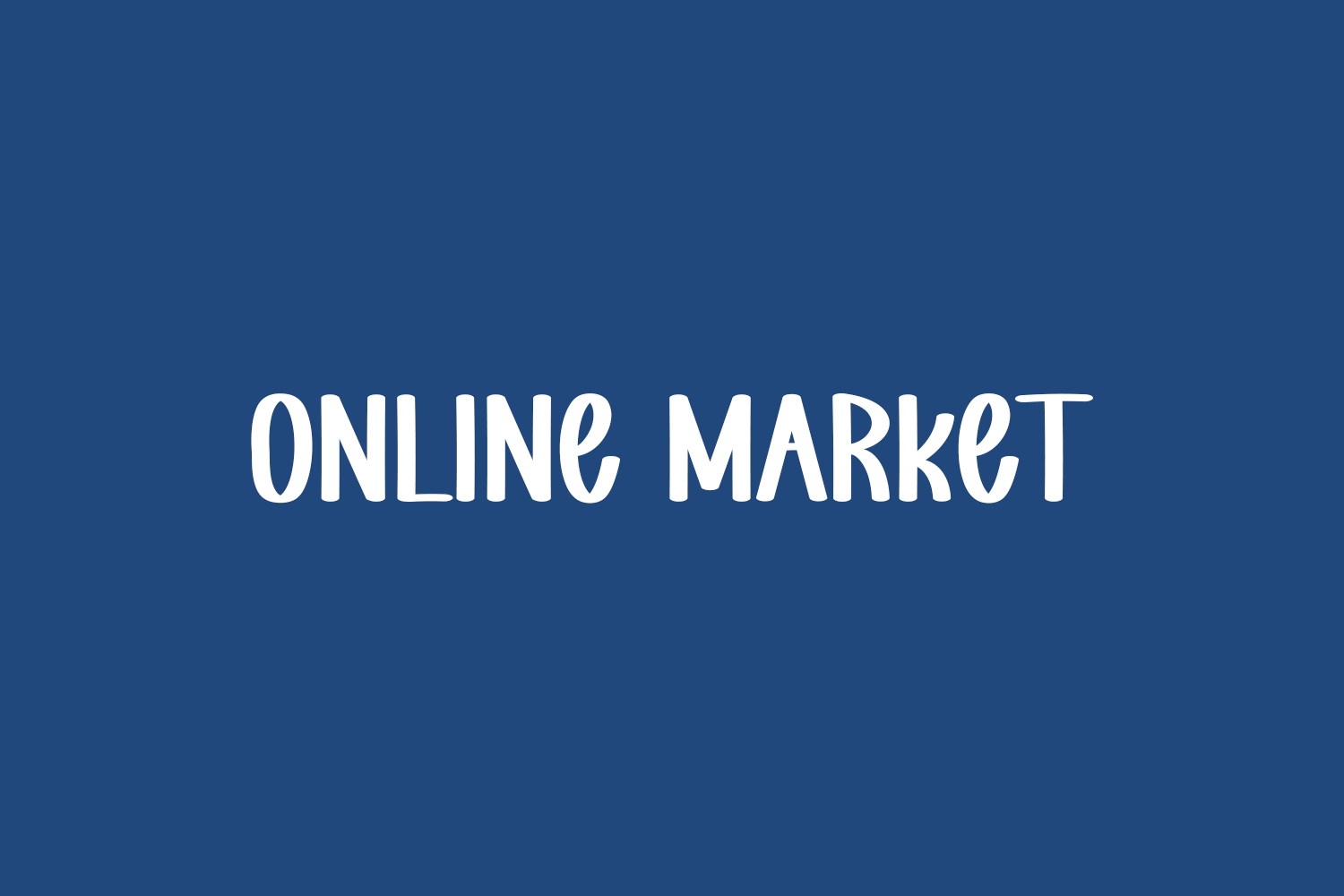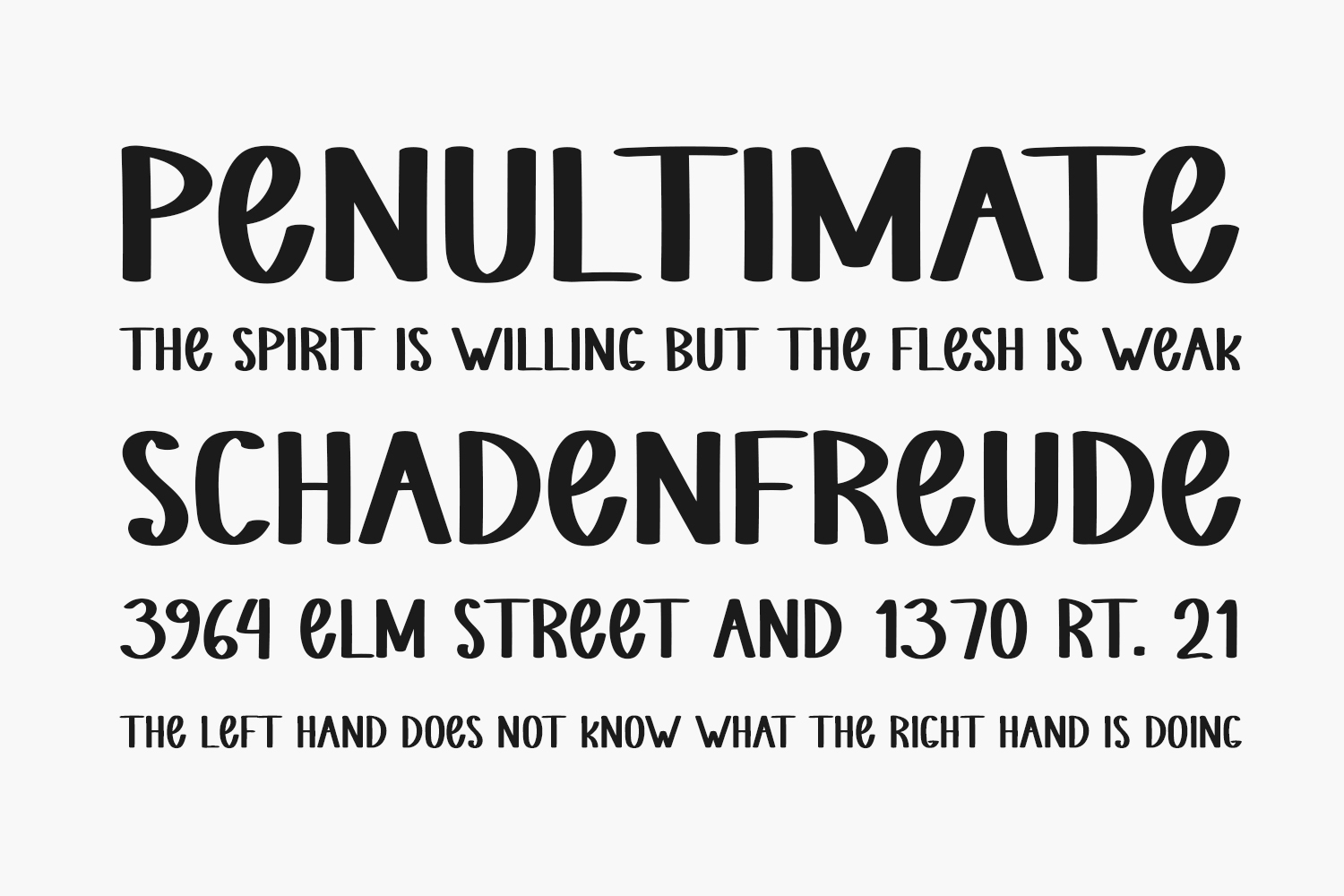
Discover Online Market Free Font, a delightful and approachable handwritten font. With its playful and laid-back style, this font is perfect for crafting wedding invitations, greeting cards, or any design project seeking a charming flourish. Download the font for free if you need it for personal use or purchase the full version for commercial use.
Designed by Andi Moz